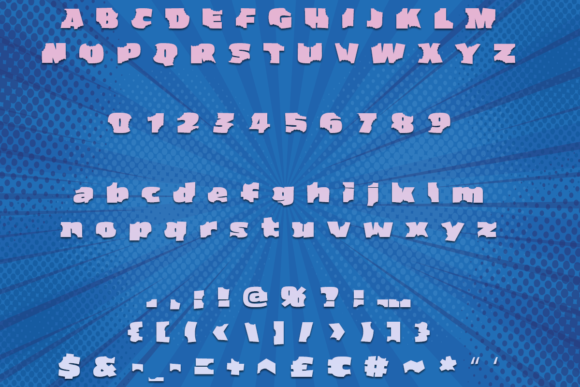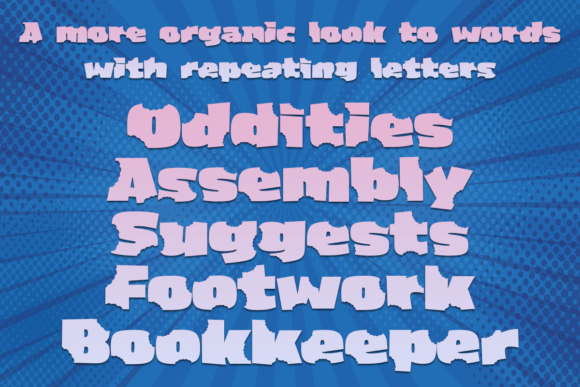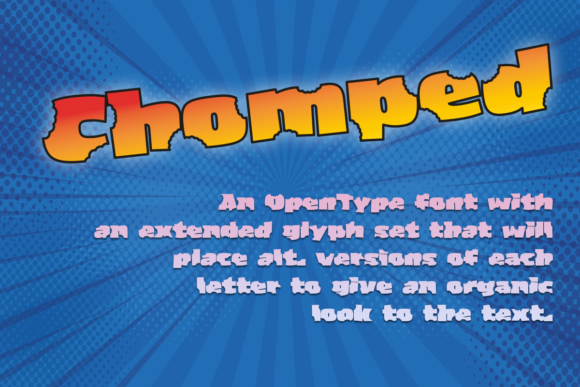
The Designer’s Delight: Exploring the Playful World of Chomped Font
I’ll never forget the time I was working on a craft project, trying to create a custom watermark for a client’s photo album. I had a clear vision in mind, but the fonts I was using just weren’t cutting it – they were either too bland or too over-the-top. That’s when I stumbled upon Chomped Font, and let me tell you, it was love at first sight! 😍
Chomped is a playful and chunky display font that’s perfect for adding character and depth to a variety of projects, including watermarks, name tags, labels, banners, and more! In this article, we’ll dive into the world of Chomped Font, exploring its features, uses, and some clever ways to get the most out of this delightful font.
What I Love About Chomped Font
- ✨ Unique and playful design: Chomped Font has a distinctive, chunky look that’s sure to grab attention.
- ✅ Highly versatile: This font can be used for a wide range of projects, from digital designs to print materials.
- 💡 Easy to read: Despite its chunky design, Chomped Font is surprisingly easy to read, even at smaller sizes.
While Chomped Font is an amazing addition to any design project, there are a few things to keep in mind:
- 🤔 Limited use in body text: Due to its chunky design, Chomped Font is best suited for headlines, titles, and short phrases.
- ⚠️ May not be suitable for very small sizes: While Chomped Font is easy to read, it may not be the best choice for very small font sizes (e.g., 8-10pt).
The Story Behind Chomped Font
Chomped Font was designed by a talented type designer who wanted to create a font that was both playful and functional. Inspired by the world of crafting and DIY projects, Chomped Font was born – a font that’s perfect for adding a touch of personality to any design project.
| Font Name | Chomped Font |
| Author | Tracertong Fontworks |
Q: What type of projects is Chomped Font best suited for?
A: Chomped Font is perfect for a variety of projects, including watermarks, name tags, labels, banners, and more!
Q: Is Chomped Font easy to read?
A: Yes, despite its chunky design, Chomped Font is surprisingly easy to read, even at smaller sizes.